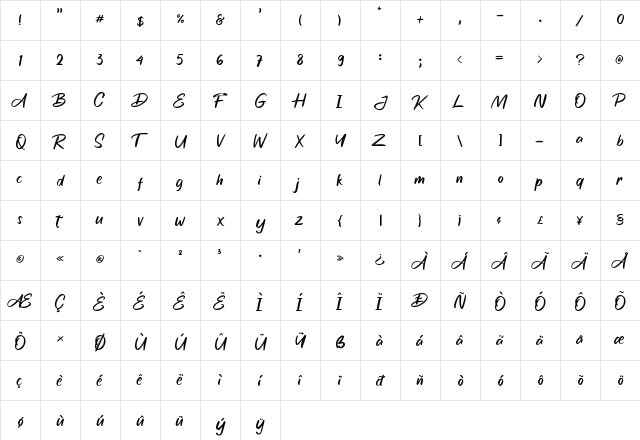
Sweet Garnish Regular
| Foundry | Kotakkuningstudio |
| Designer | M Arif Dwi Prasetyo & Eko Nurcahyo |
Design Context for Sweet Garnish Typeface
Sweet Garnish is a composed and adaptable typeface that performs quietly and consistently across a wide range of design contexts.